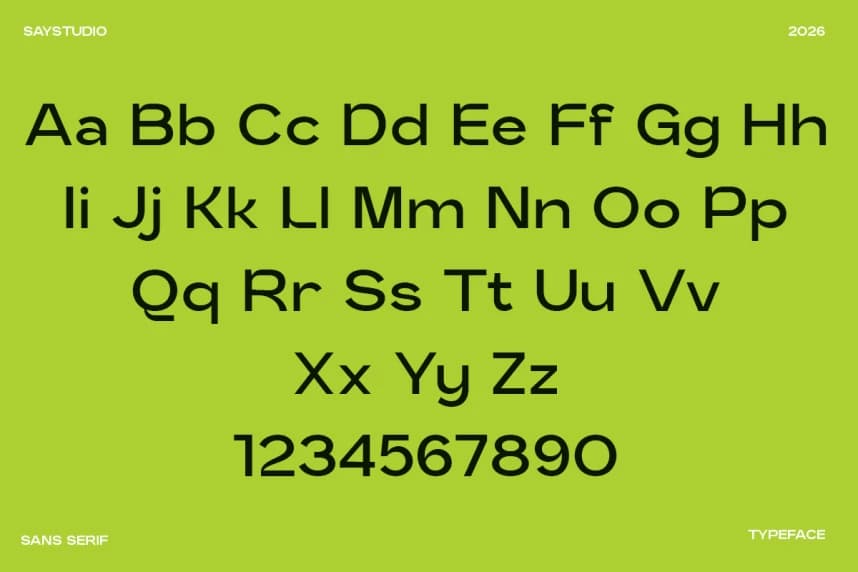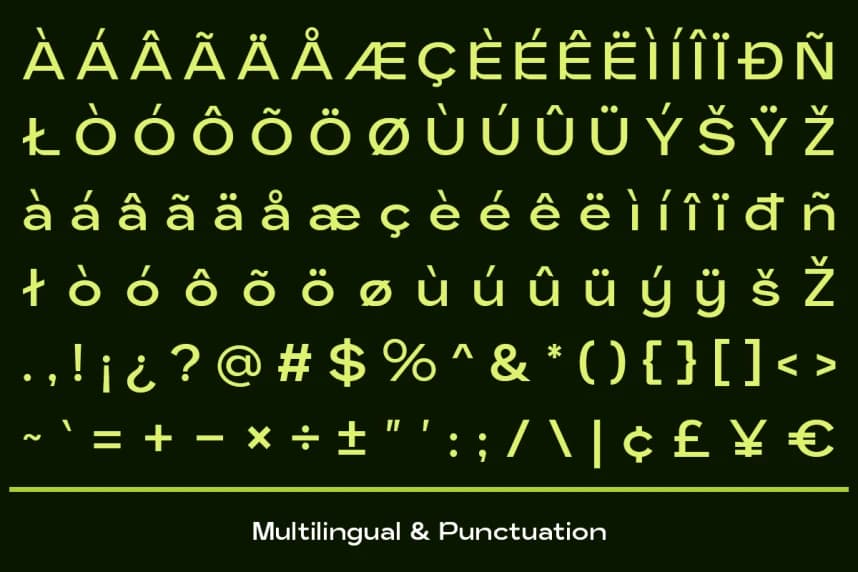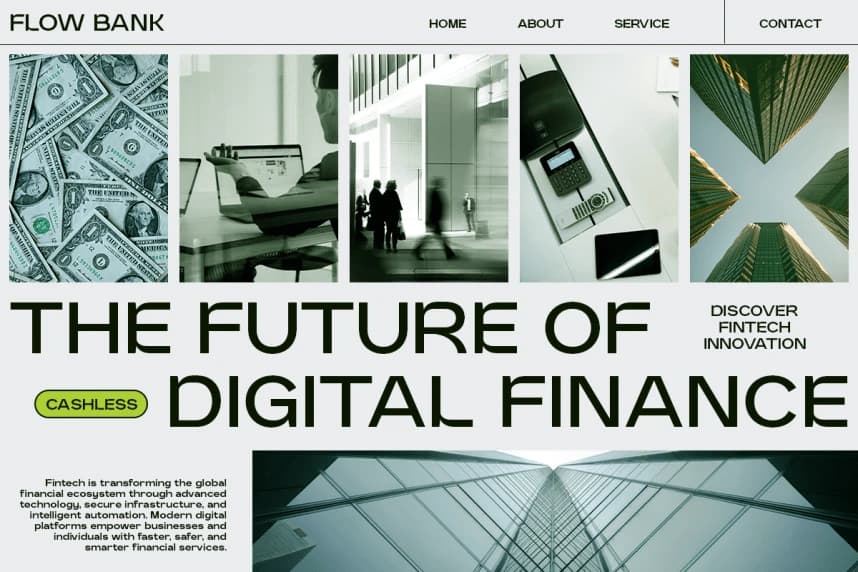
Kelantis DEMO Font
Kelantis DEMO Font is a modern sans serif typeface crafted for clarity, simplicity, and contemporary visual impact. Designed with clean lines and balanced proportions, this font delivers a sleek and professional look that fits perfectly into today’s digital and branding landscape. Its minimal structure ensures excellent readability across both large headlines and smaller text applications.